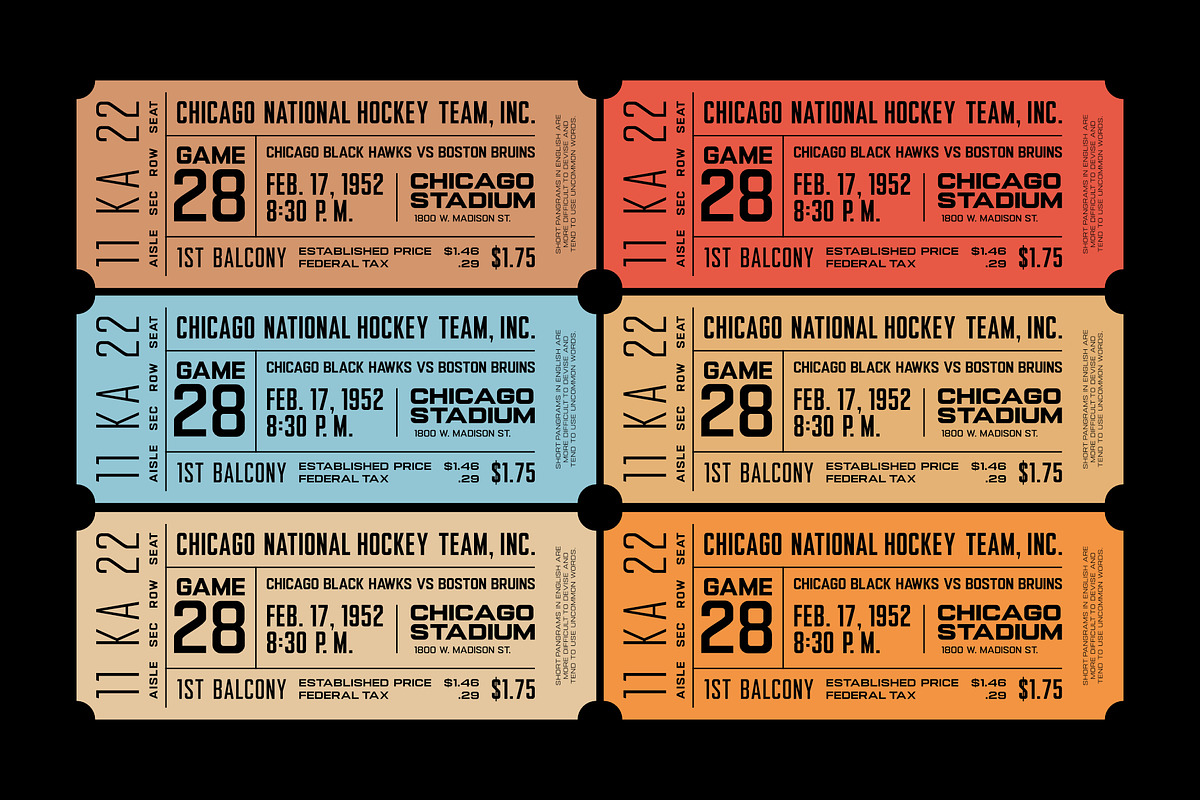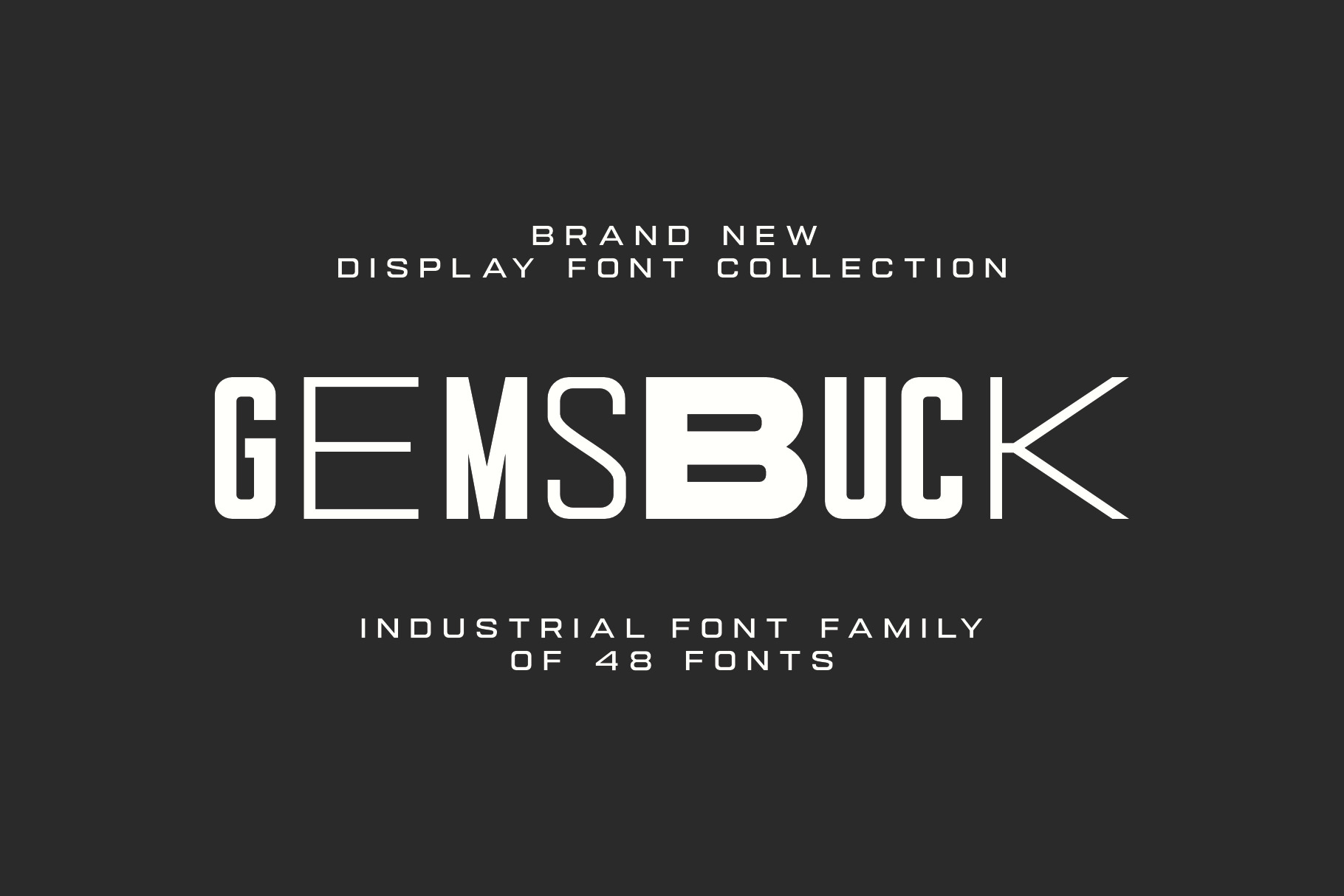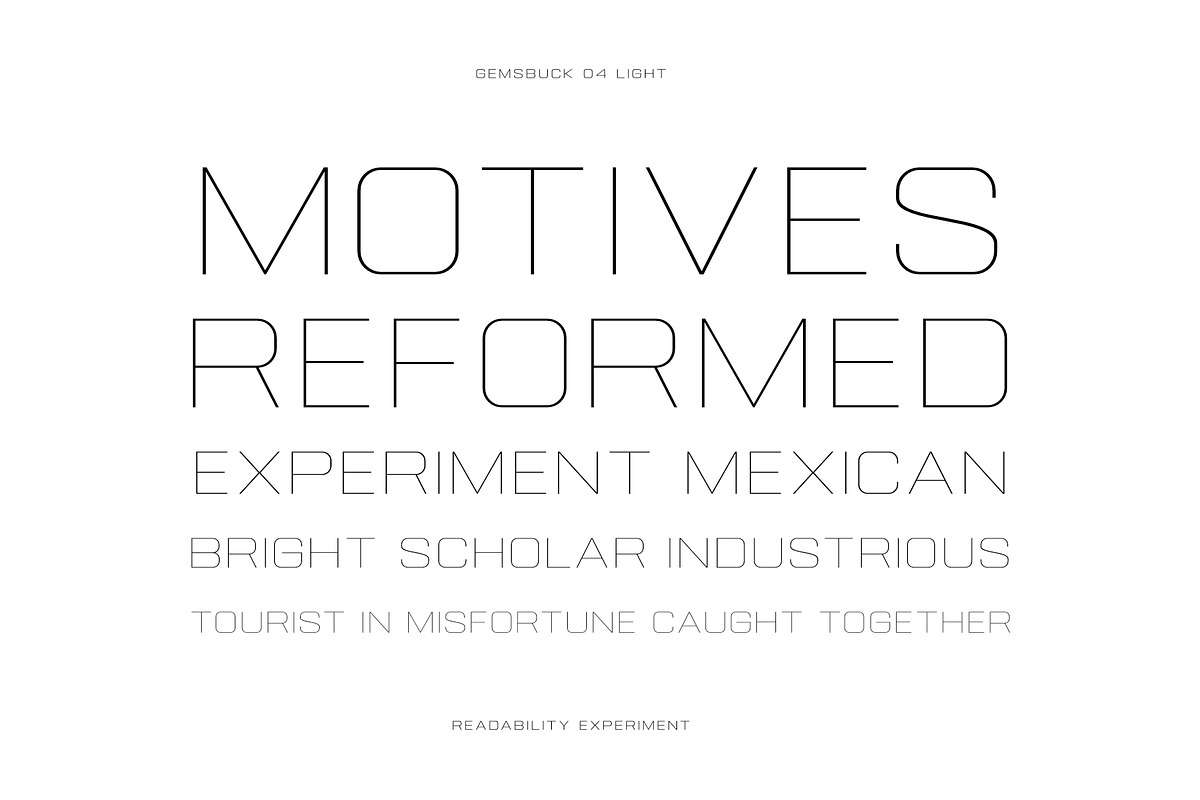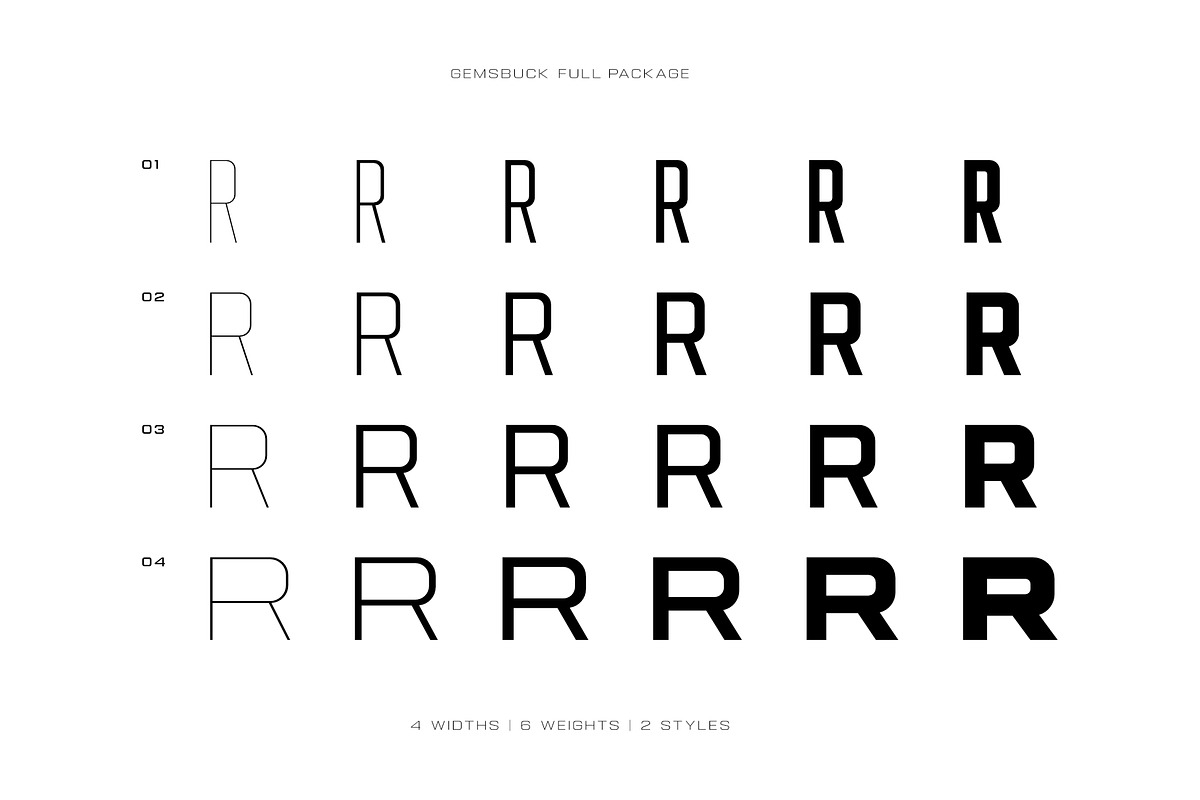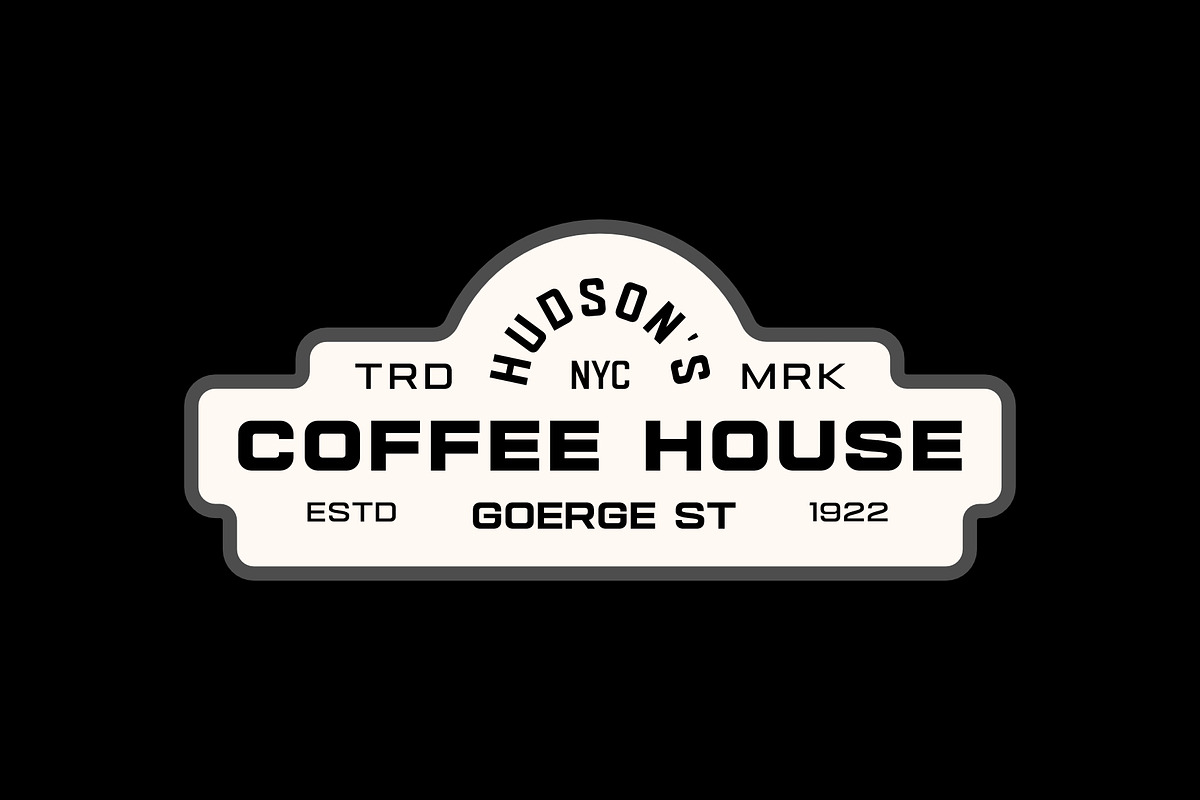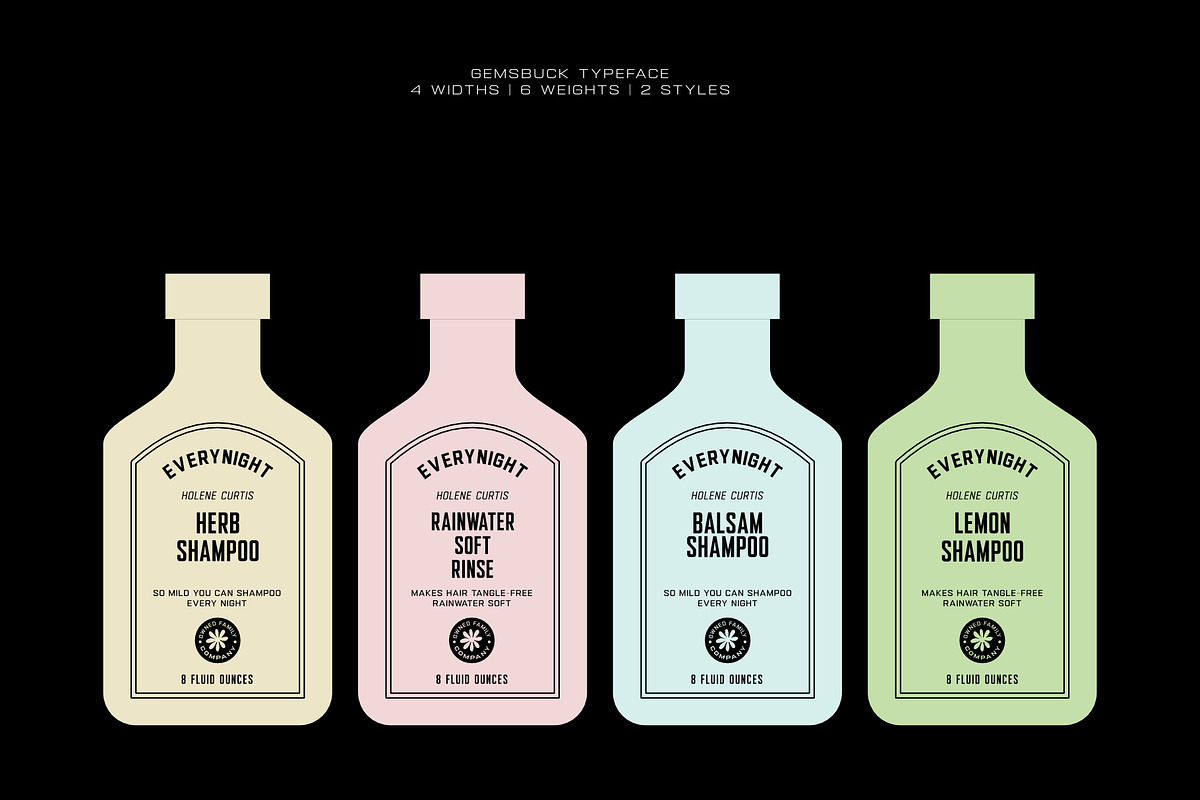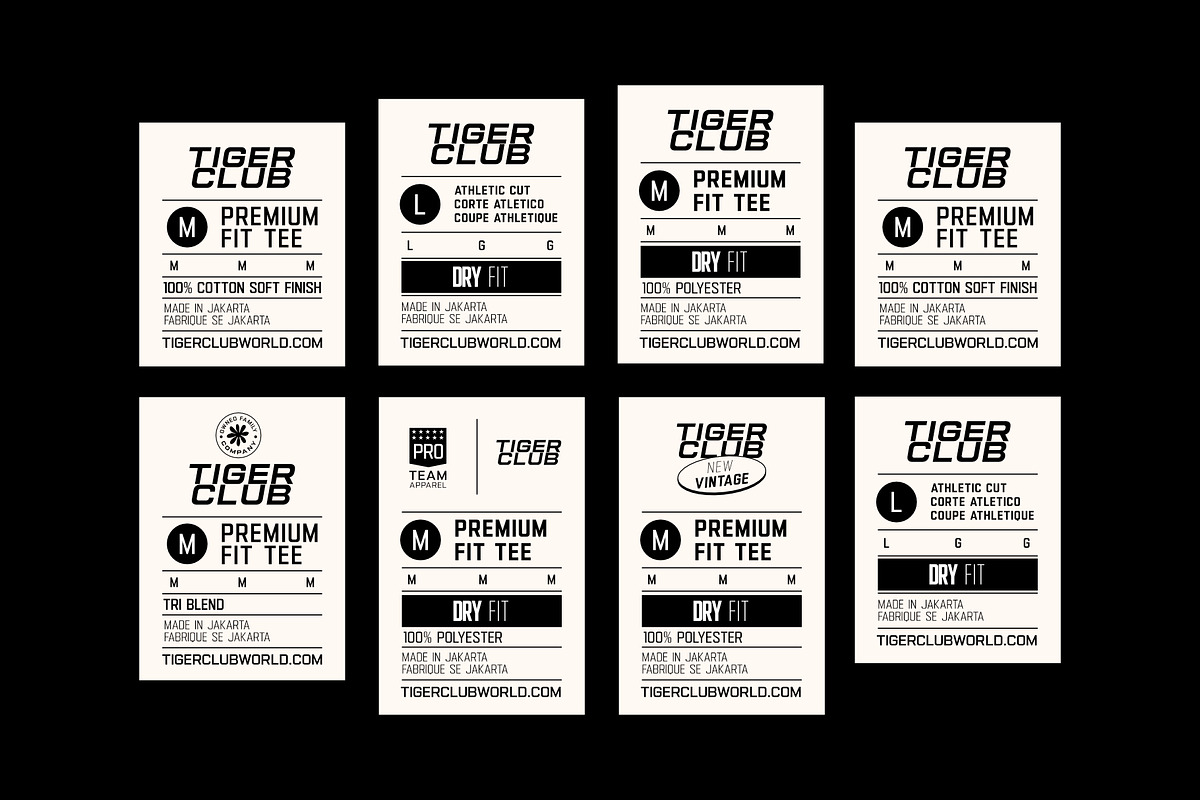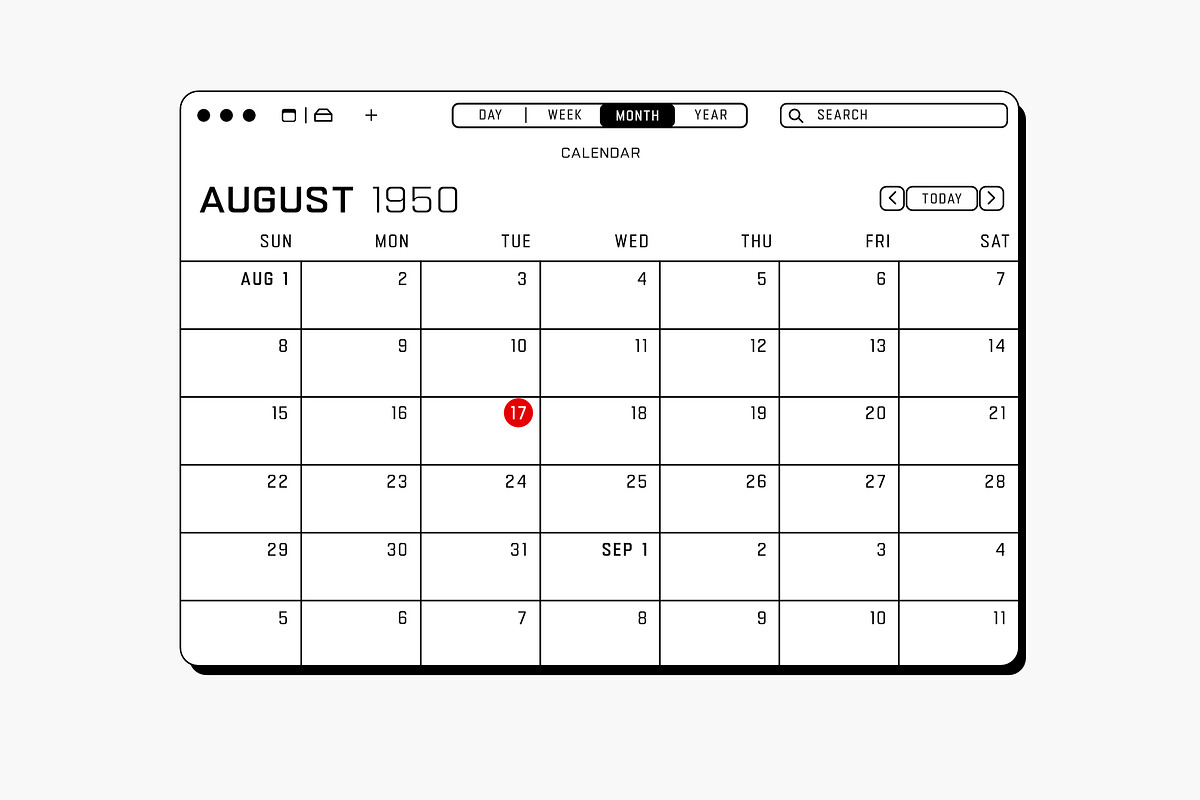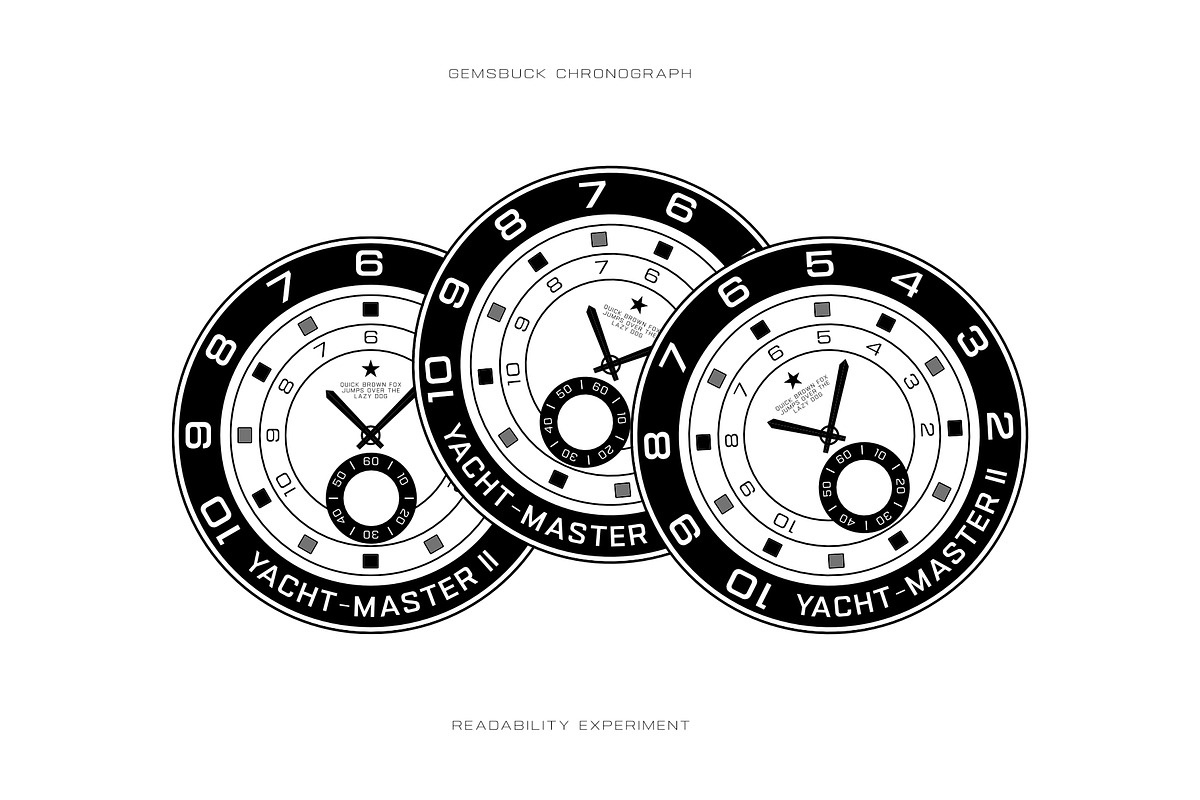
Gemsbuck Modern Vintage Font Family
Gemsbuck Pro is a powerhouse font family with 40+ versatile styles, blending modern tech sharpness with vintage soul. From clean sans serif lines, it’s built to flex across every kind of branding, logo, or design need—whether you’re going bold, sleek, or somewhere in between.
Perfect for luxury branding, elegant logos, or even modern wedding visuals, Gemsbuck Pro brings both technical structure and artistic edge. Its style range captures everything from retro stamp-inspired looks to futuristic, engineering-influenced forms—making it ideal for high-end fashion, forward-thinking tech, and creative projects where innovation meets aesthetics.
Whether you're crafting a standout logo tech identity, a minimalist brand, or adding character to packaging and print, Gemsbuck Pro is your ultimate creative toolkit. It’s bold. It’s clean. It’s luxurious. And it’s made to make an impact.